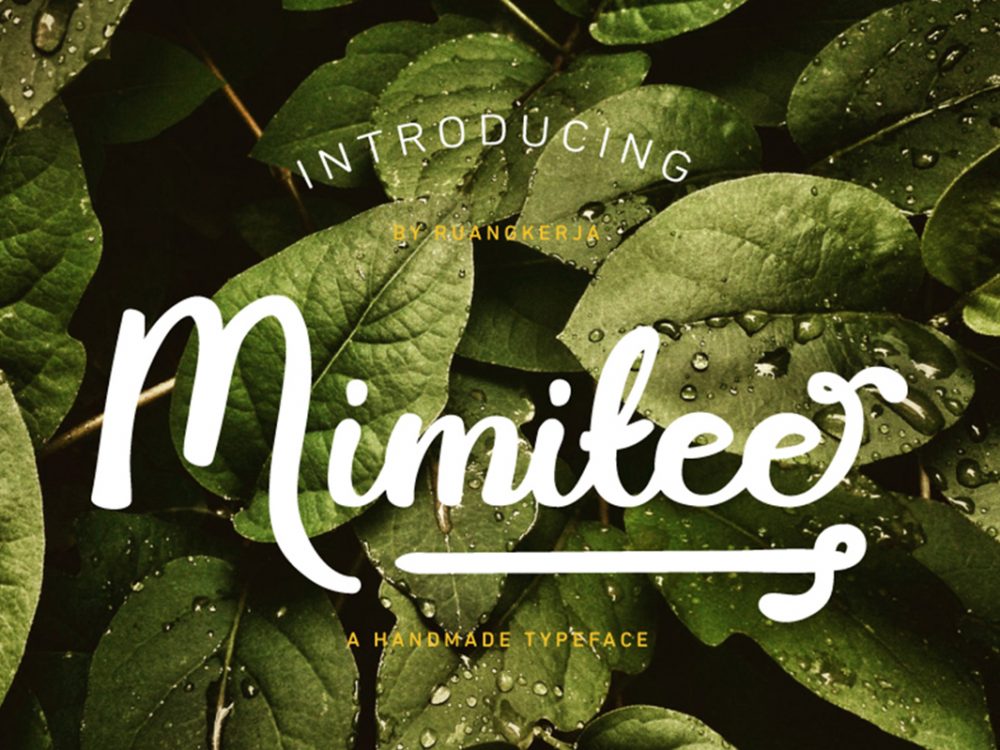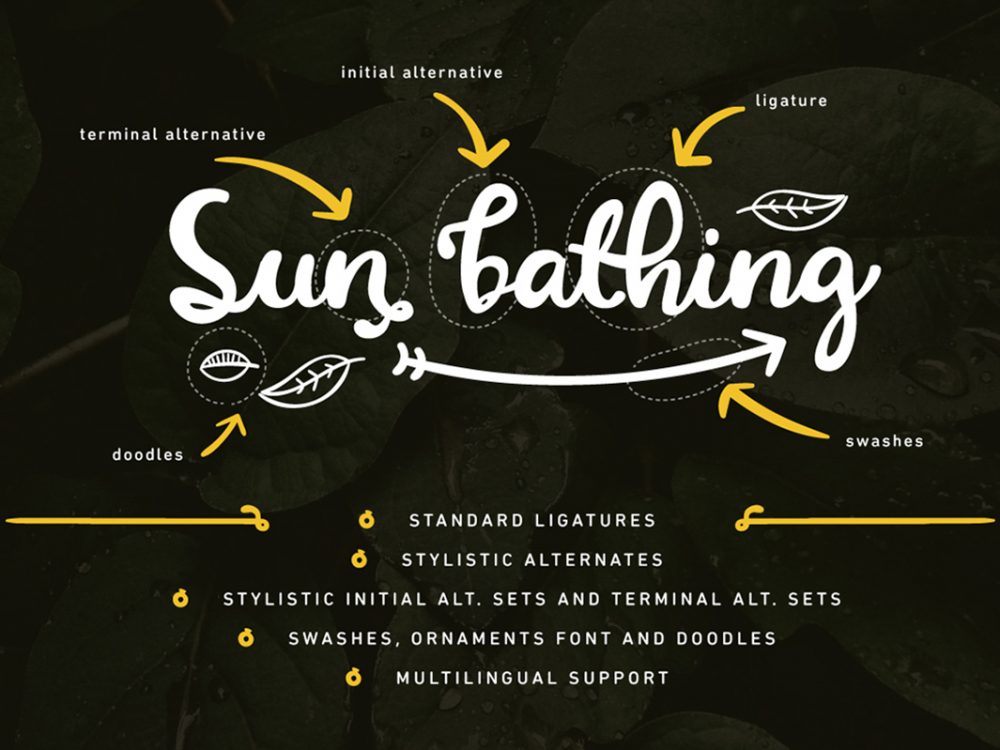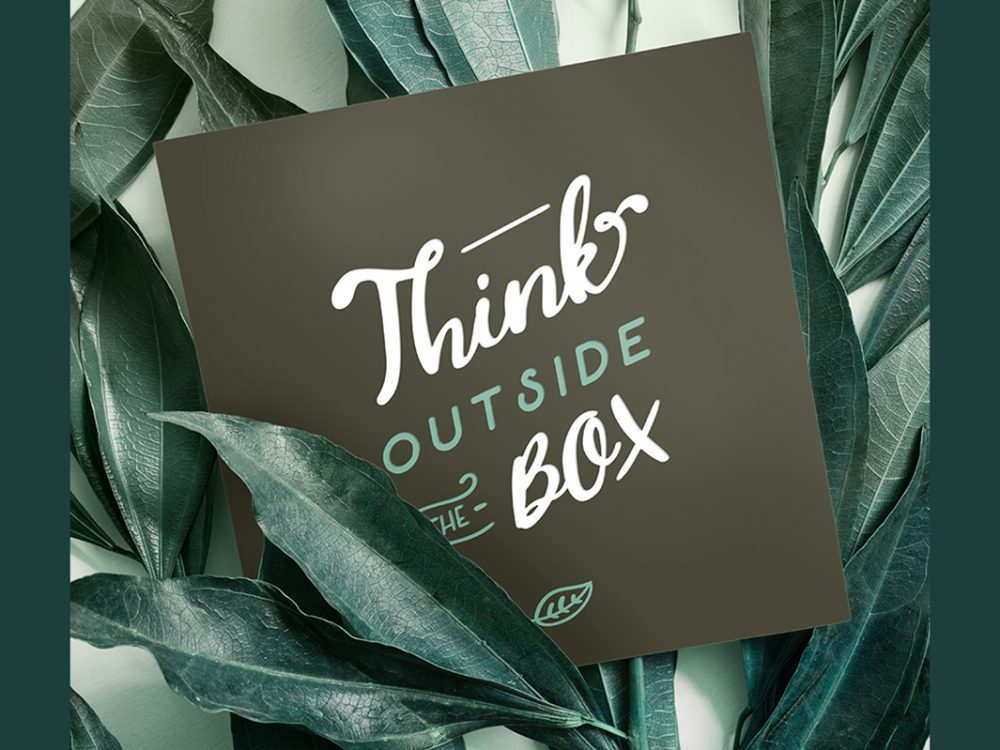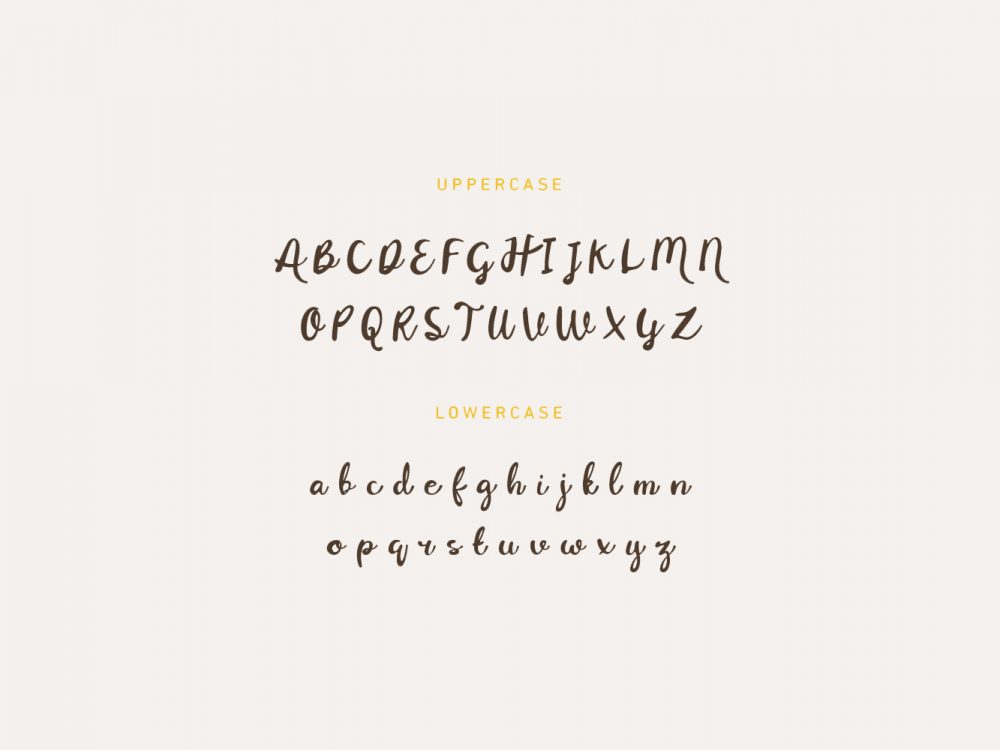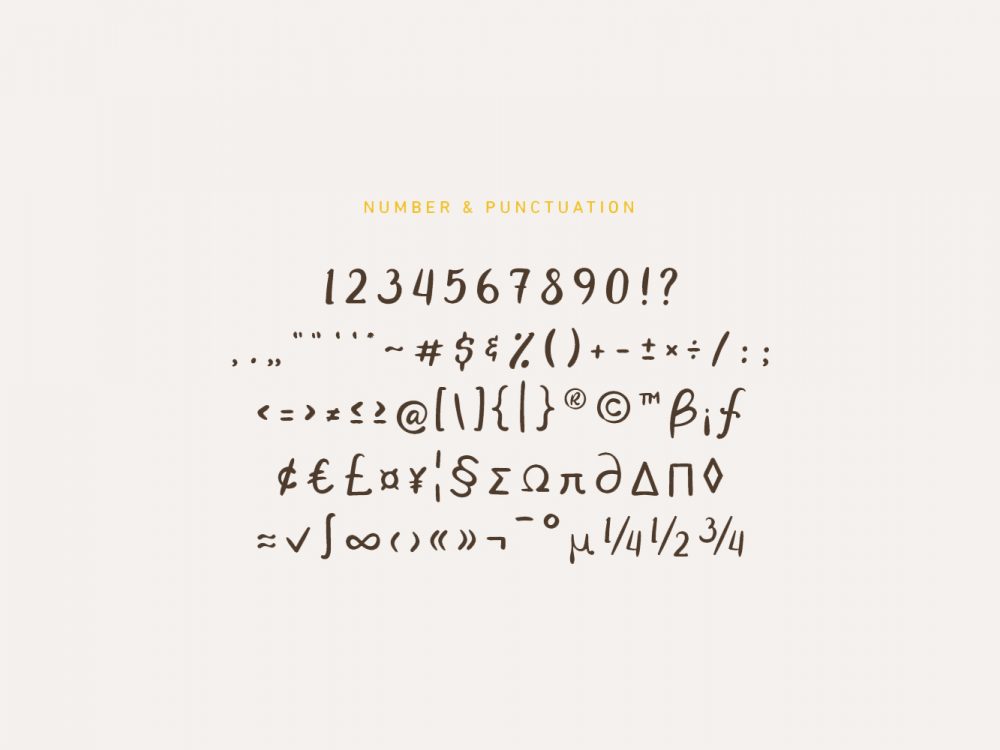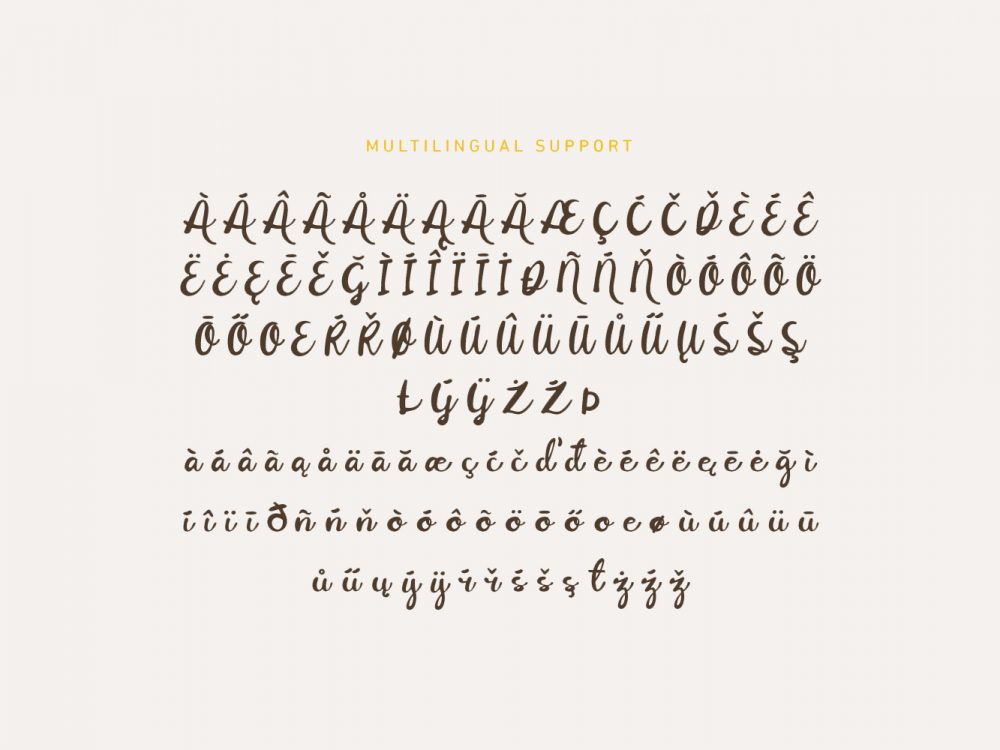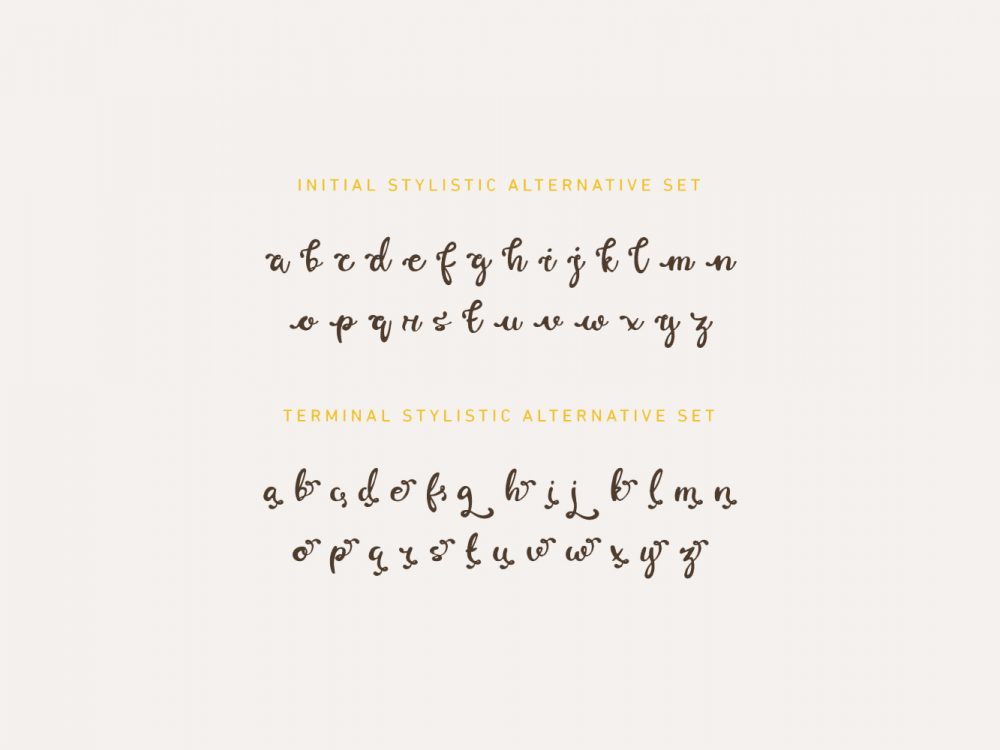
Mimitee Free Font
Mimitee Free Font is an interesting handwritten font that stands out with its elegant curves and style. This font is perfect for creating various design projects that require a handwritten font. Use this font to create invitations, posters, cards, flyers, prints, and more. If you want to use it for commercial work please buy the full version.